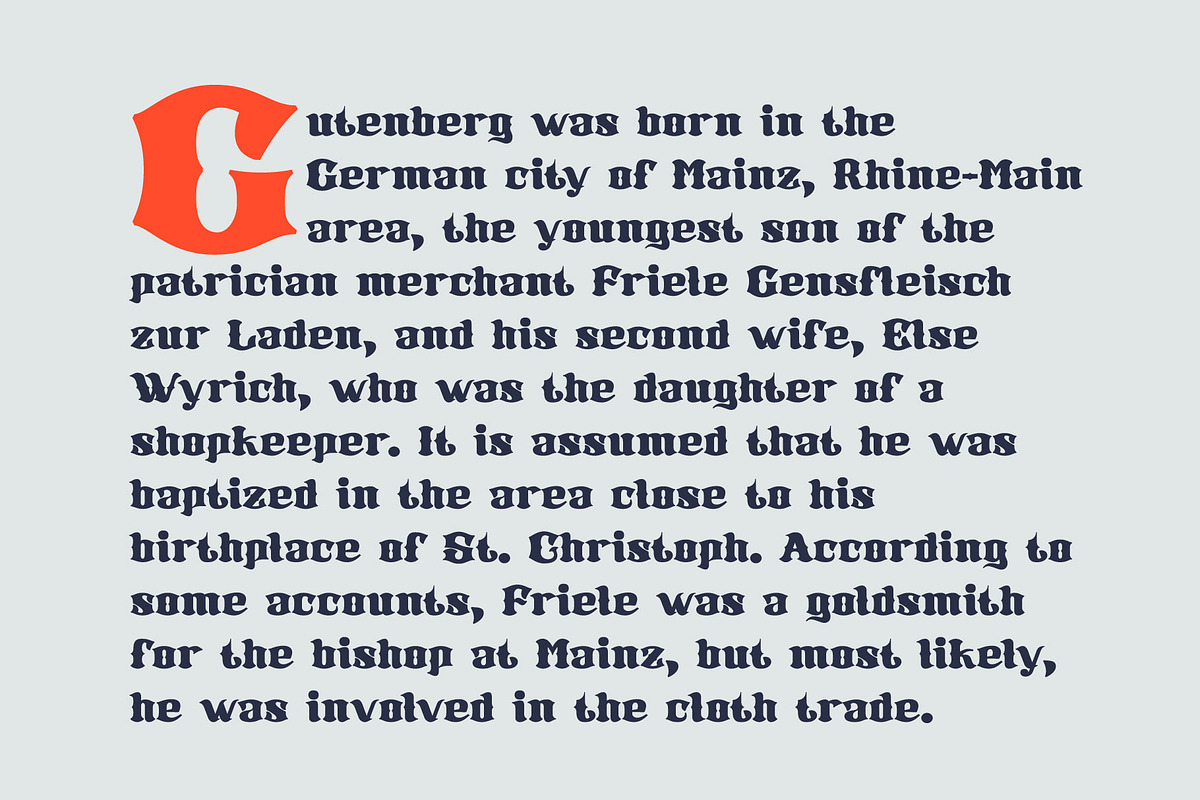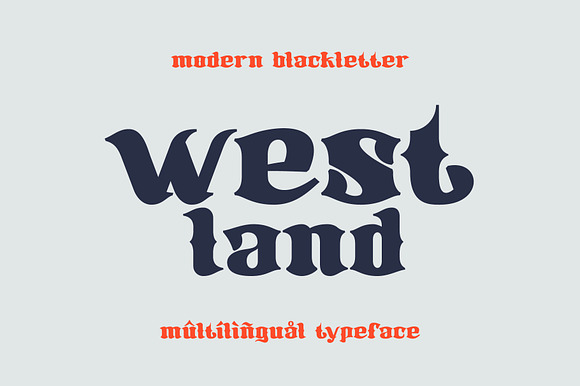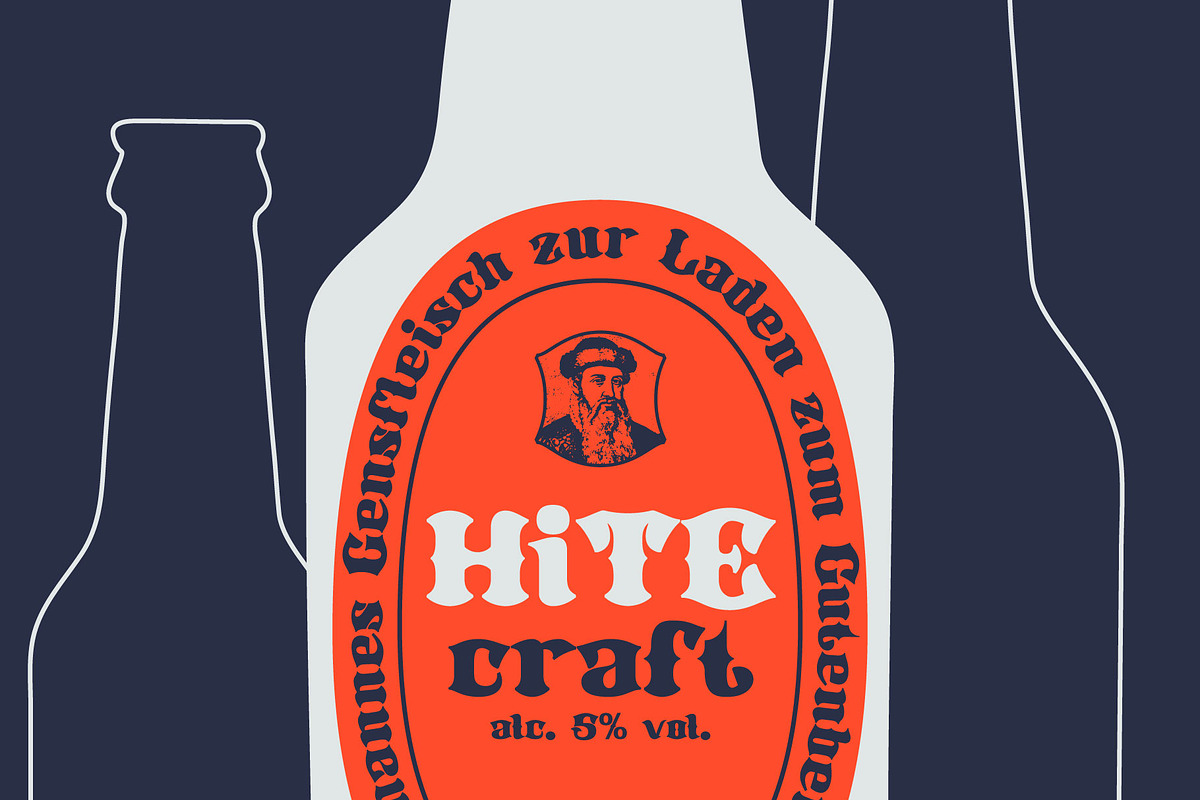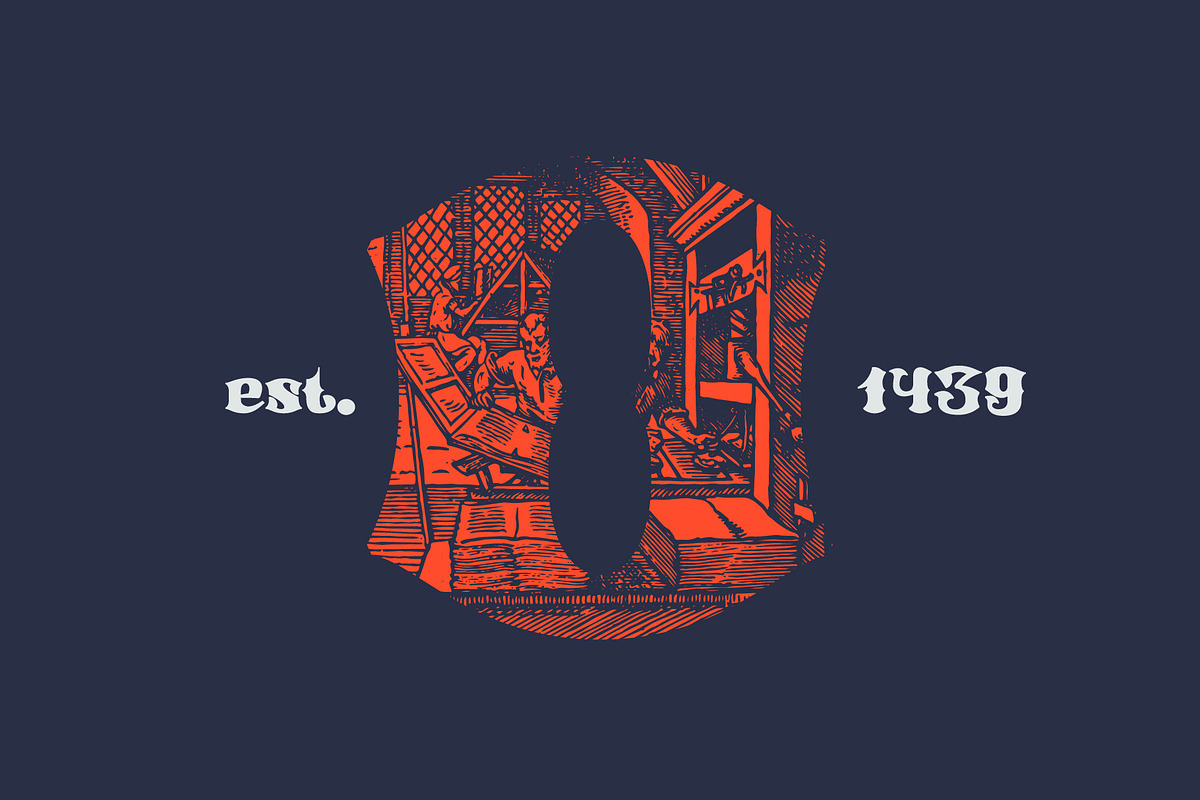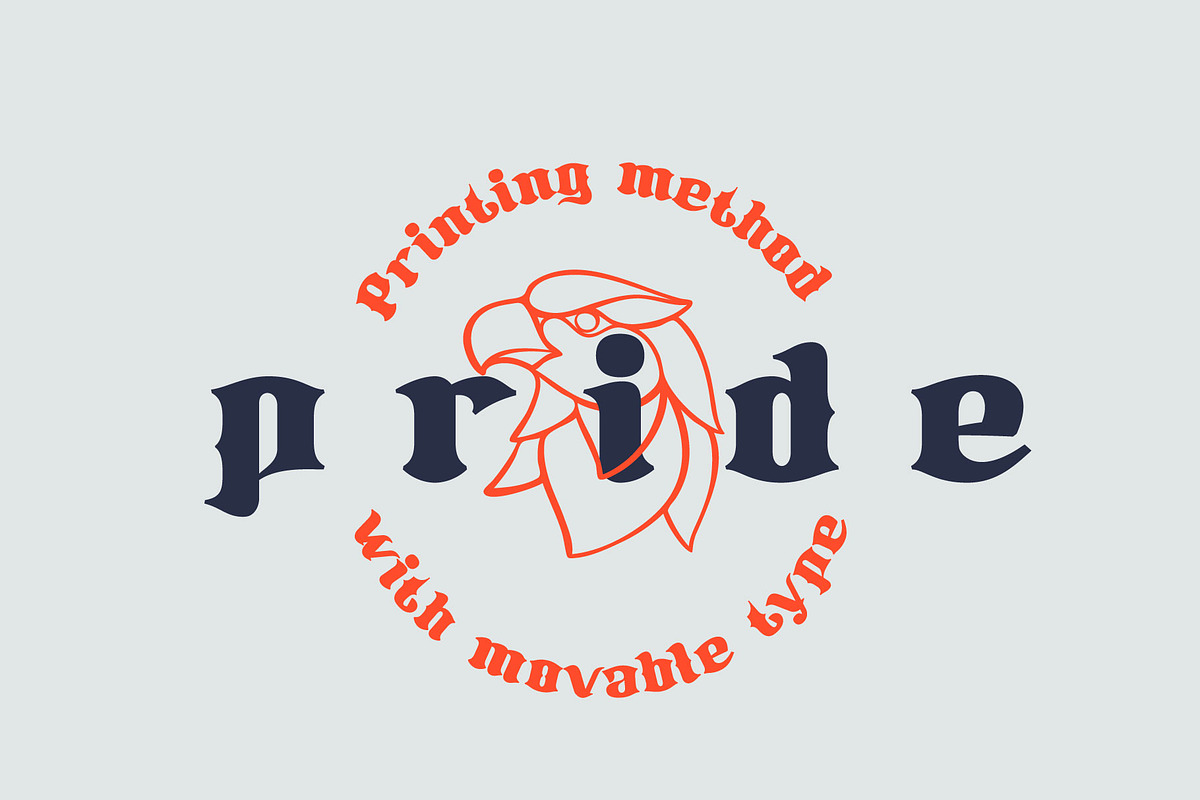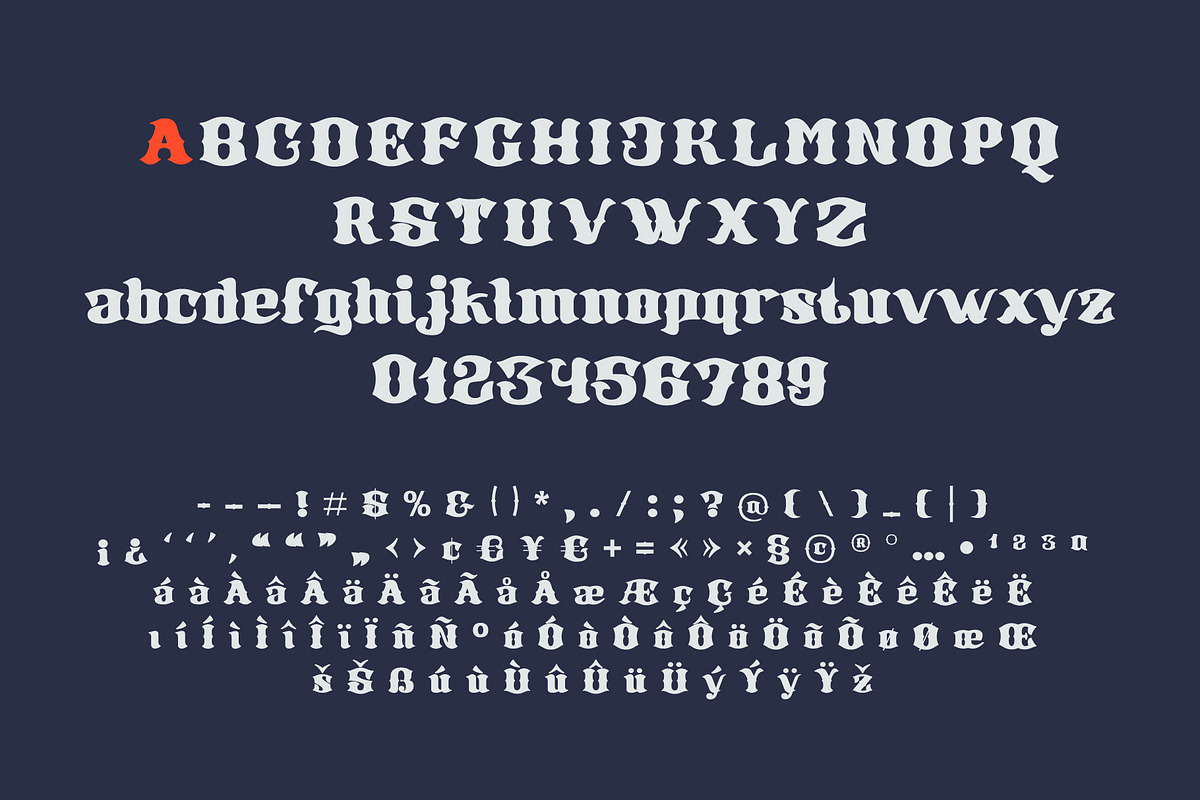
Westland blackletter font
Westland is a modern blackletter typeface with bend serifs. The font is perfect to use in any alcohol labels, retro style logos, luxury identity, etc.
Uppercase and lowercase